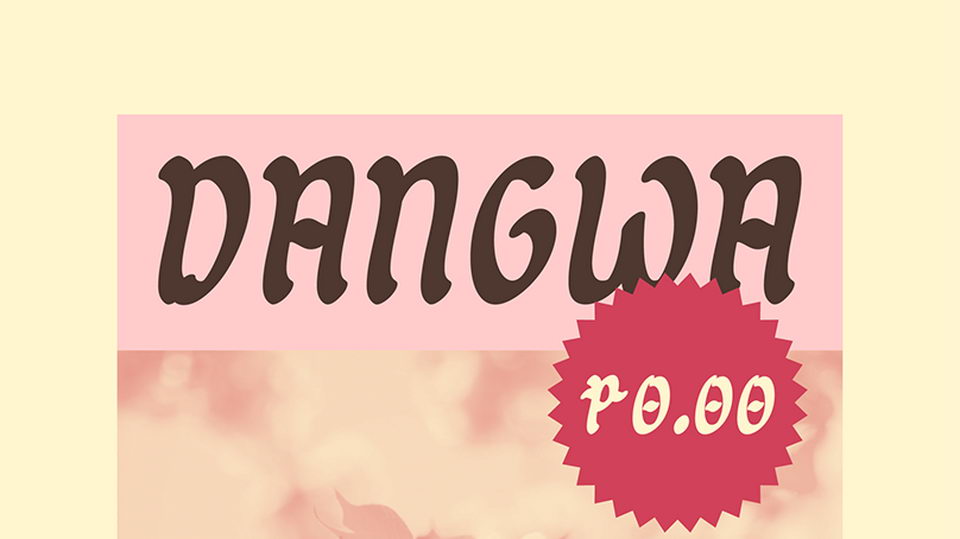
Download Dangwa font, a brush typeface inspired by Filipino Sign Makers and the typography found in the entire culture of every lively streets of Manila and the Philippines.
Designer: Aaron Amar